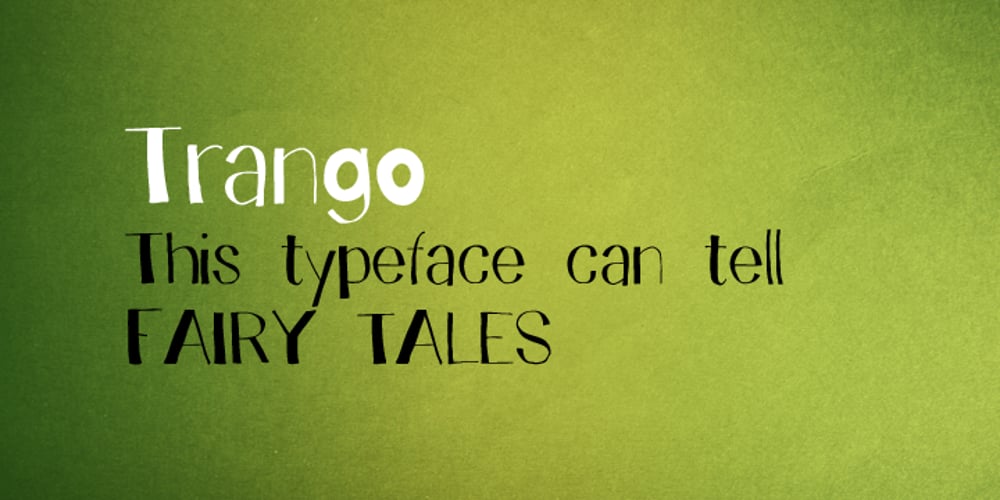
Trango
Trango font
Trango Font Family was designed by Juraj Chrastina and published by Juraj Chrastina. Trango contains 1 styles and family package options. A funny childish handwritten font, with a spirit. This typeface can tell fairy tales. Trango is a sans serif that goes well with the slab serif Besley Hand.